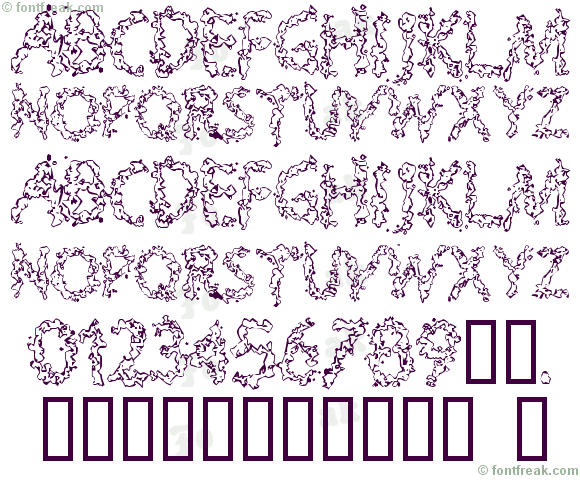
Splooge
Splooge by Rob Dobi is a unique display font that captures a playful and organic aesthetic, perfect for various creative projects. This font features an unconventional decorative style characterized by its irregular, fluid shapes that evoke a sense of whimsy. The stroke weight is varied, with some lines appearing thicker and others thinner, creating a dynamic visual rhythm. The overall contrast in the characters enhances its playful nature, while the spacing between letters contributes to a light-hearted feel, allowing the design to breathe.
Ideal use cases for the Splooge font include quirky wedding invitations that aim for a fun, informal vibe, eye-catching movie posters for comedies or animated films, and vibrant restaurant menus that wish to convey a casual dining experience. Additionally, this font can be effectively utilized in branding for creative businesses, such as art studios or children's products, helping to establish a memorable identity. The target audience for Splooge consists of graphic designers, small business owners, and content creators seeking to infuse a sense of personality and uniqueness into their work.
What sets the Splooge font apart is its ability to convey a sense of fun and creativity, making it an excellent choice for projects that aim to stand out. Its playful design and versatility allow it to adapt to various creative contexts, giving users the freedom to express their vision. With a Splooge font free download available, anyone can easily incorporate this delightful typeface into their projects, enhancing their design with a touch of charm and character. Whether for professional use or personal projects, Splooge is sure to leave a lasting impression.